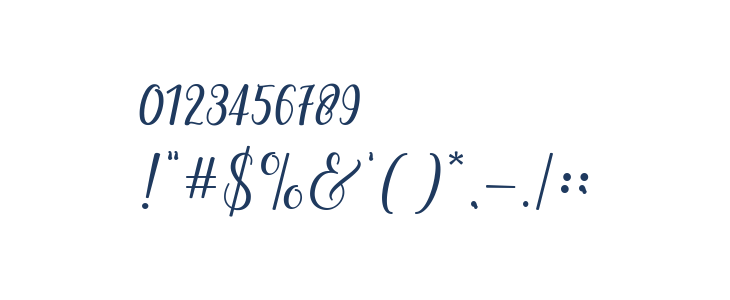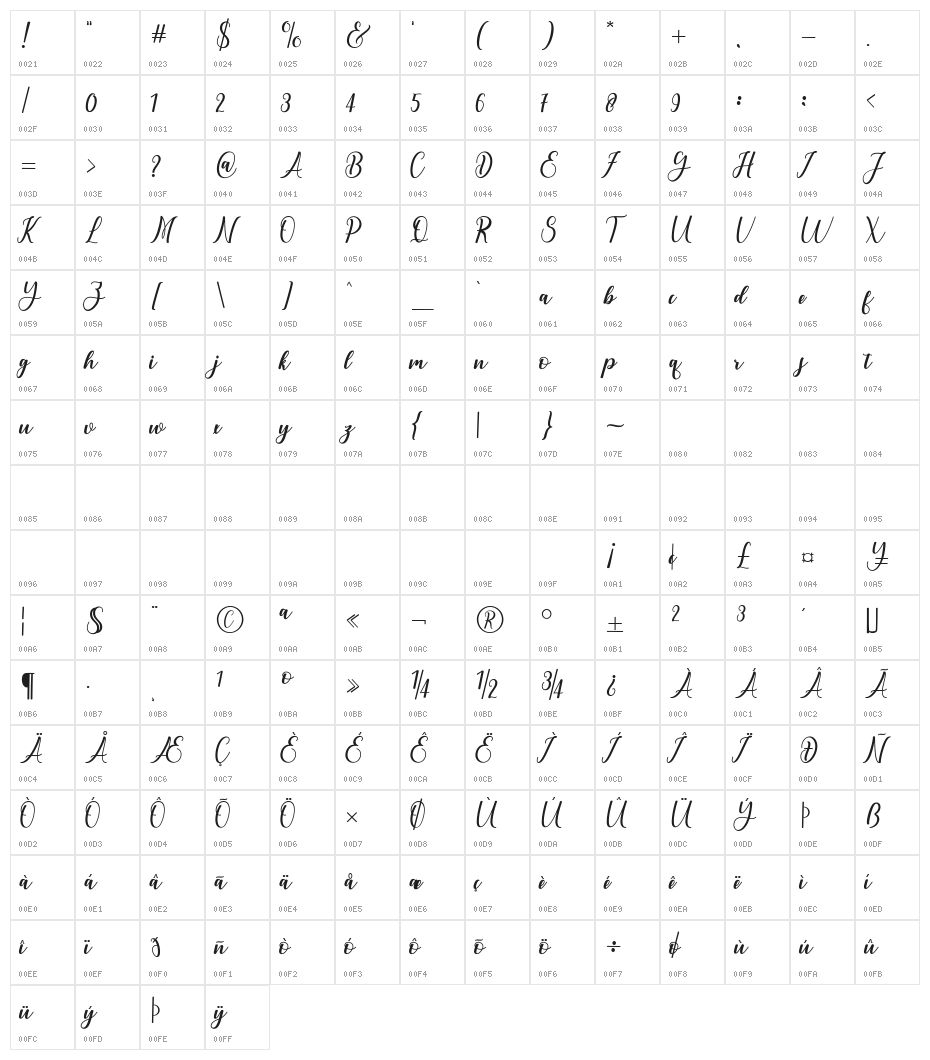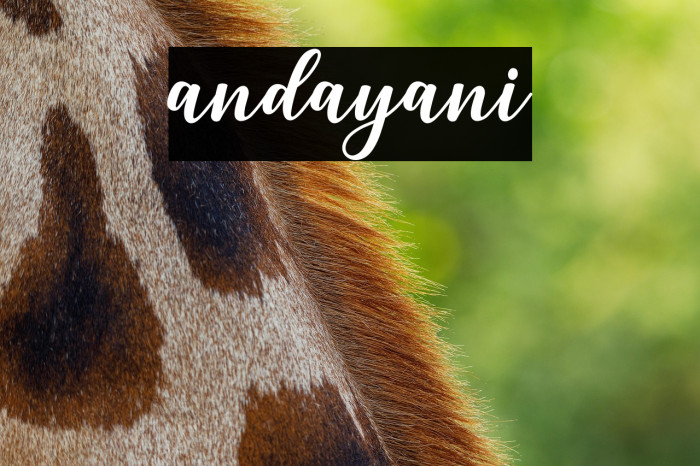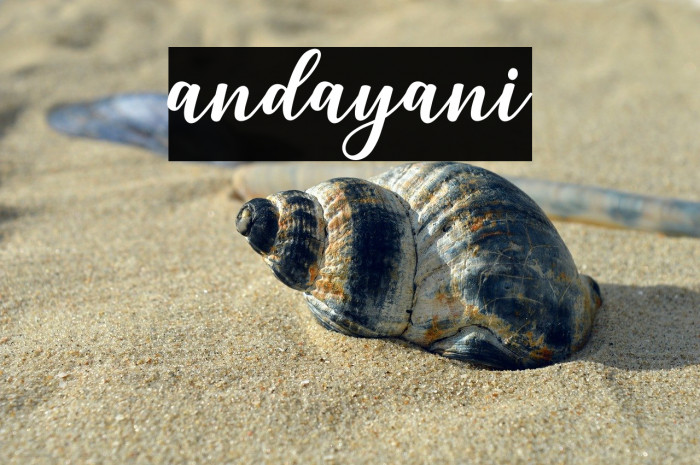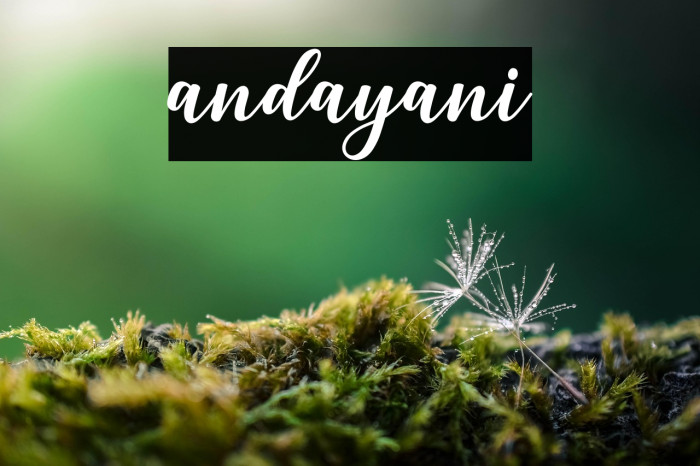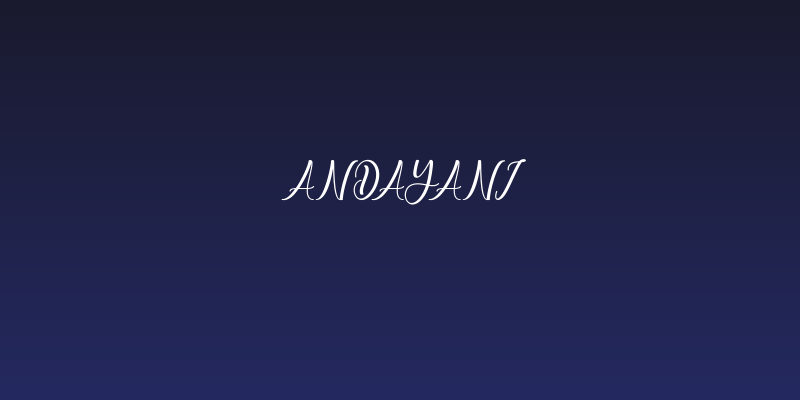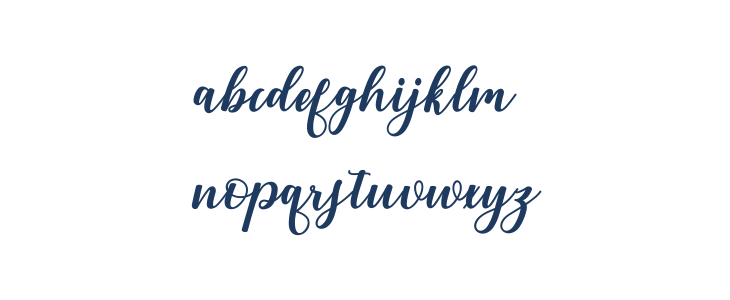
andayani Font
andayani Description
This elegant script font features flowing, cursive letterforms that exude a sense of sophistication and grace. The uppercase letters are characterized by their sweeping curves and loops, while the lowercase letters maintain a consistent fluidity, making the font ideal for creating a harmonious visual flow. The numerals and special characters are designed with the same attention to detail, ensuring a cohesive look across all elements. The font's overall style is both classic and decorative, making it suitable for a variety of applications where a touch of elegance is desired.
| Overall Style | Classic, Decorative |
| Use Case | Logos, Invitations, Decorative text |
| Proposed Projects | Ideal for wedding invitations, elegant branding, greeting cards, and decorative signage. |